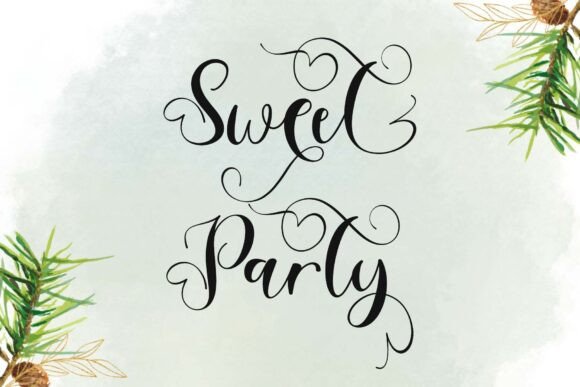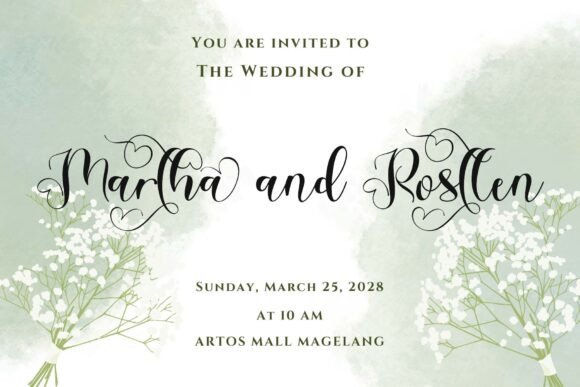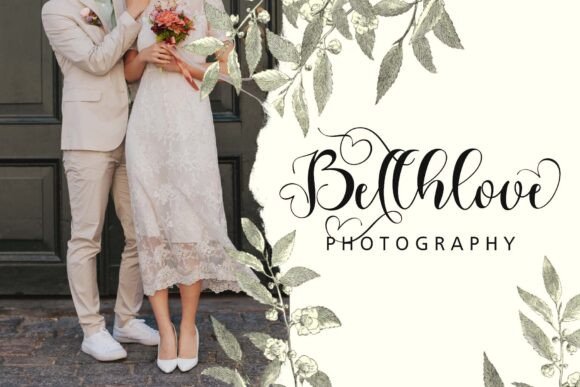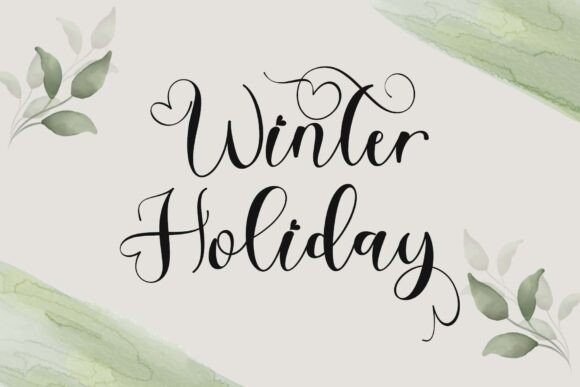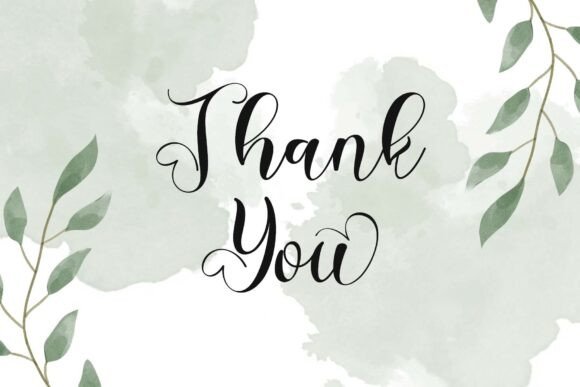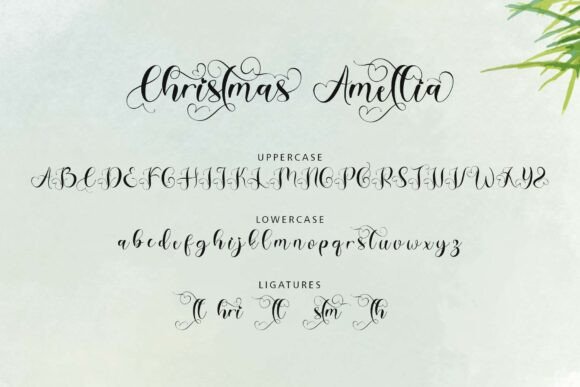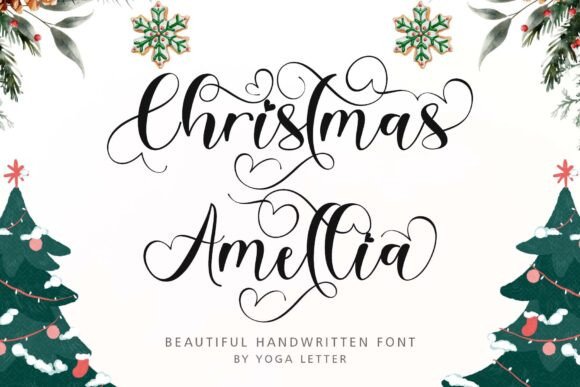
Introducing Christmas Amellia Font: A Charming Handwritten Delight for Your Holiday Designs
Are you looking for a beautiful and charming font to elevate your Christmas designs, wedding invitations, or Valentine’s Day cards? Look no further than the Christmas Amellia Font! This stunning handwritten font is perfect for adding a touch of elegance and sophistication to your projects. In this article, we’ll dive into the features and benefits of Christmas Amellia Font, and explore how you can use it to create stunning designs.
What is Christmas Amellia Font?
Christmas Amellia Font is a beautiful and charming handwritten font that is perfect for a variety of design projects. It comes with a range of features, including capital letters, lowercase letters, ligatures, numbers, punctuation, multilingual support, swash alternatives, and more. This font is designed to be versatile and easy to use, making it perfect for designers and crafters of all levels.
Key Features of Christmas Amellia Font
- Capital Letters: Christmas Amellia Font includes a range of beautiful capital letters that are perfect for titles, headings, and emphasis.
- Lowercase Letters: The font also includes a range of charming lowercase letters that are perfect for body text and descriptions.
- Ligatures: Christmas Amellia Font includes ligatures, which are special characters that combine two or more letters to create a beautiful and unique effect.
- Numbers and Punctuation: The font includes a range of numbers and punctuation marks, making it perfect for creating detailed and informative designs.
- Multilingual Support: Christmas Amellia Font supports multiple languages, making it perfect for designers and crafters who work with international clients or want to create designs for a global audience.
- Swash Alternatives: The font includes swash alternatives, which are special characters that add a touch of elegance and sophistication to your designs.
Uses for Christmas Amellia Font
Christmas Amellia Font is perfect for a variety of design projects, including:
- Christmas Designs: Use Christmas Amellia Font to create stunning Christmas cards, invitations, and decorations.
- Wedding Invitations: The font is perfect for creating beautiful and elegant wedding invitations, save-the-date cards, and thank-you notes.
- Valentine’s Day Cards: Use Christmas Amellia Font to create romantic and charming Valentine’s Day cards and gifts.
- Photography: The font is perfect for adding a touch of elegance and sophistication to your photography projects, including photo captions, titles, and descriptions.
Tips for Using Christmas Amellia Font
Here are some tips for using Christmas Amellia Font in your designs:
- Experiment with Font Sizes: Try using different font sizes to create visual interest and hierarchy in your designs.
- Mix and Match: Combine Christmas Amellia Font with other fonts to create a unique and interesting effect.
- Use Swashes and Ligatures: Take advantage of the font’s swash alternatives and ligatures to add a touch of elegance and sophistication to your designs.
Christmas Amellia Font is a beautiful and charming handwritten font that is perfect for a variety of design projects. With its range of features, including capital letters, lowercase letters, ligatures, numbers, punctuation, multilingual support, swash alternatives, and more, it’s the perfect choice for designers and crafters who want to create stunning and elegant designs. Whether you’re working on a Christmas design, wedding invitation, or photography project, Christmas Amellia Font is sure to impress.